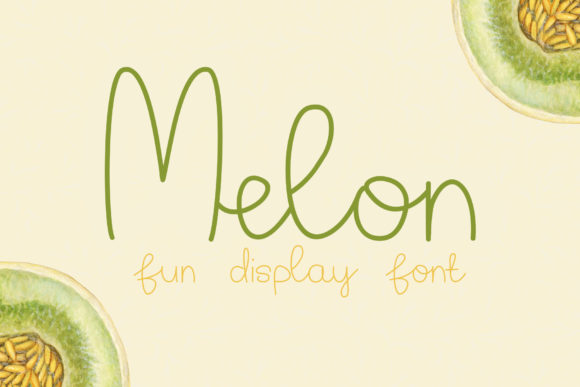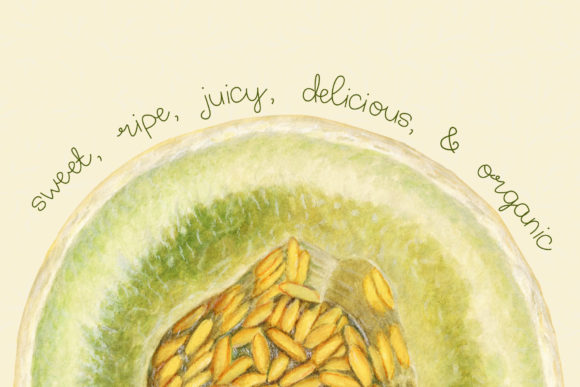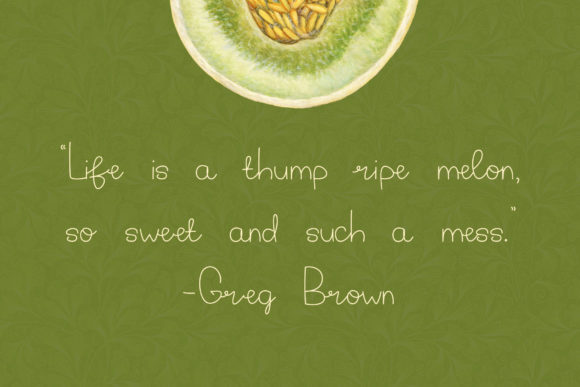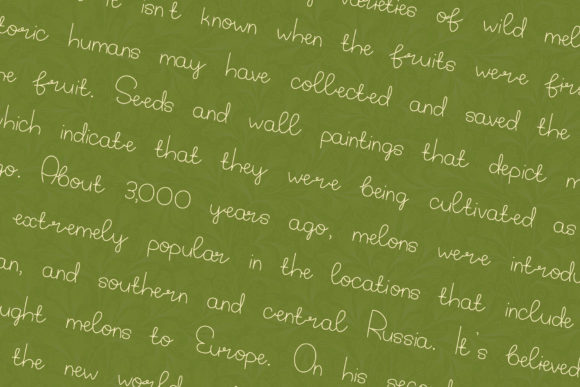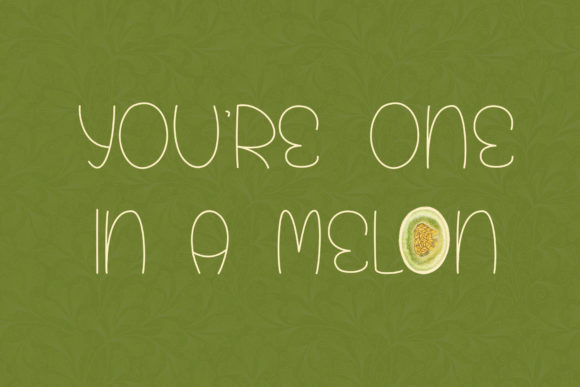
Introducing “Melon,” a fun and quirky handwritten font that will bring a light-hearted and playful vibe to your designs. With its unique and whimsical style, Melon is the perfect choice for a wide range of creative projects.
Let Melon add a burst of joy and personality to your t-shirt designs. Whether you’re creating designs for kids, teens, or anyone who loves a fun and happy look, this font will make your designs stand out. Combine it with colorful illustrations or bold graphics to create eye-catching and cheerful designs that will put a smile on people’s faces.
Create delightful phone cases that reflect the fun and quirky side of your personality. Melon’s playful and expressive characters will make your phone cases pop with personality. From cute and whimsical patterns to vibrant and energetic designs, this font will help you create phone cases that are as unique as the individuals who use them.
Design captivating kids’ books that capture the imagination of young readers. Melon’s fun and friendly appearance is perfect for children’s literature, whether it’s picture books, storybooks, or educational materials. Let the playful nature of the font enhance the storytelling experience and engage young readers with its vibrant and inviting characters.
Add a touch of whimsy to your greeting cards and invitations with Melon. Whether it’s for birthdays, weddings, or any special occasion, this font will infuse your designs with a lighthearted and joyful feel. Let the unique letterforms and lively personality of Melon create memorable and heartwarming cards that bring smiles to the recipients’ faces.
Make your mugs come alive with Melon. Whether you’re designing mugs for personal use or as gifts, this font will bring a fun and quirky element to your creations. Combine it with cute illustrations or motivational quotes to create mugs that inspire and brighten up someone’s day with their cheerful and playful design.
Unleash your creativity and explore the endless possibilities with Melon. Its versatility allows it to be used in various design projects, including posters, social media graphics, packaging, and more. Experiment with different colors, layouts, and compositions to create visually appealing designs that capture attention and spread happiness.
Get creative and let Melon be your go-to font when you need a fun and happy look for your projects. Its quirky and playful nature will bring a sense of lightness and joy to your designs, making them stand out and leave a lasting impression.
Unlock the charm of Melon and let it add a dose of whimsy and fun to your creative endeavors. Whether you’re designing for personal projects, professional branding, or simply want to spread some cheer through your designs, Melon is here to inspire and delight.
Choose Melon and embark on a design journey filled with laughter, creativity, and a touch of quirkiness. Let this font be your creative companion as you explore new possibilities and create designs that reflect your unique style and personality.
Embrace the fun and quirky spirit of Melon and let your imagination run wild. From t-shirt designs to phone cases, kids books to mugs, let this font be the key to unlocking a world of playful and vibrant designs. Get creative with Melon and watch as your projects come alive with joy and personality.